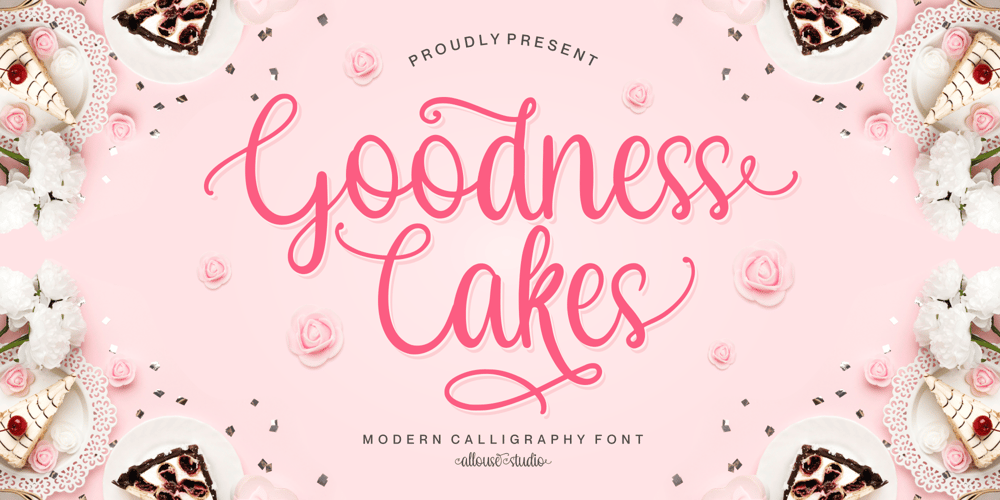
Goodness Cakes Font Family was designed by Fachrizal Yusuf and published by Allouse Studio. Goodness Cakes contains 1 styles and family package options. Proudly Presenting, Goodness Cakes a Modern Calligraphy Font. Goodness Cakes is perfect for product packaging, branding project, megazine, social media, wedding, or just used to express words above the background. Goodness Cakes come with ligatures, tons of swashes and alternates, and also Multi-Lingual Support. We highly recommend using a program that supports OpenType features and Glyphs panels like many of Adobe apps and Corel Draw, so you can see and access all Glyph variations.Enjoy the font, feel free to comment or feedback, send me PM or email. Thank You!